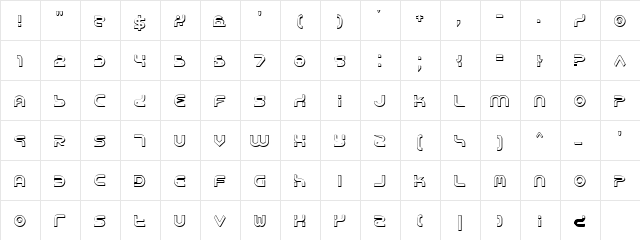
Yukon Tech Shadow Shadow
Design Context for Yukon Tech Shadow Typeface
Yukon Tech Shadow channels digital-age aesthetics through its sharp, structured letterforms — ideal for brands that want to signal innovation.
Pro Tip: Try Yukon Tech Shadow with generous letter-spacing in UI labels and navigation — the geometric forms benefit from room to breathe.